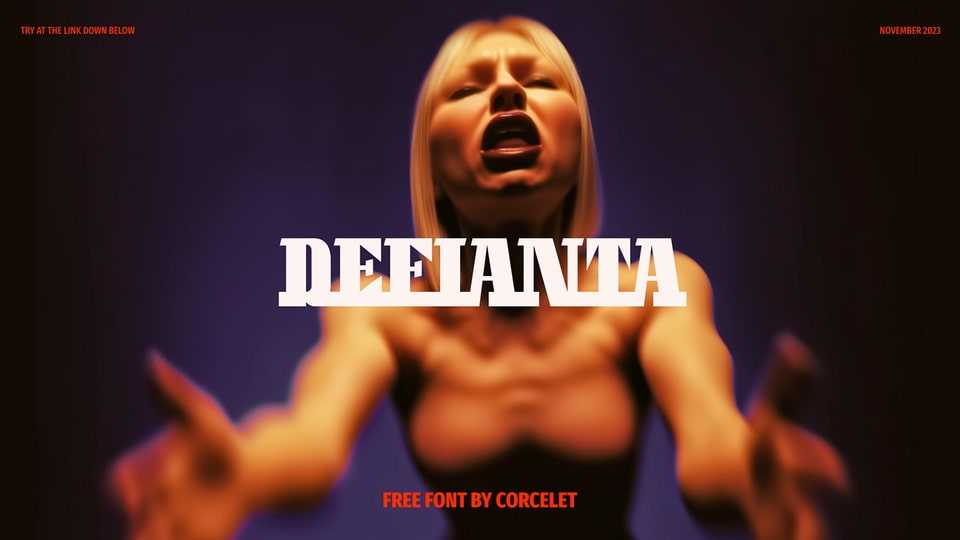
Download Defianta font, a slab serif typeface meticulously crafted for sophistication and distinction. Defianta font exudes a refined strength, marrying the structured precision of squares with the graceful curvature of circles.